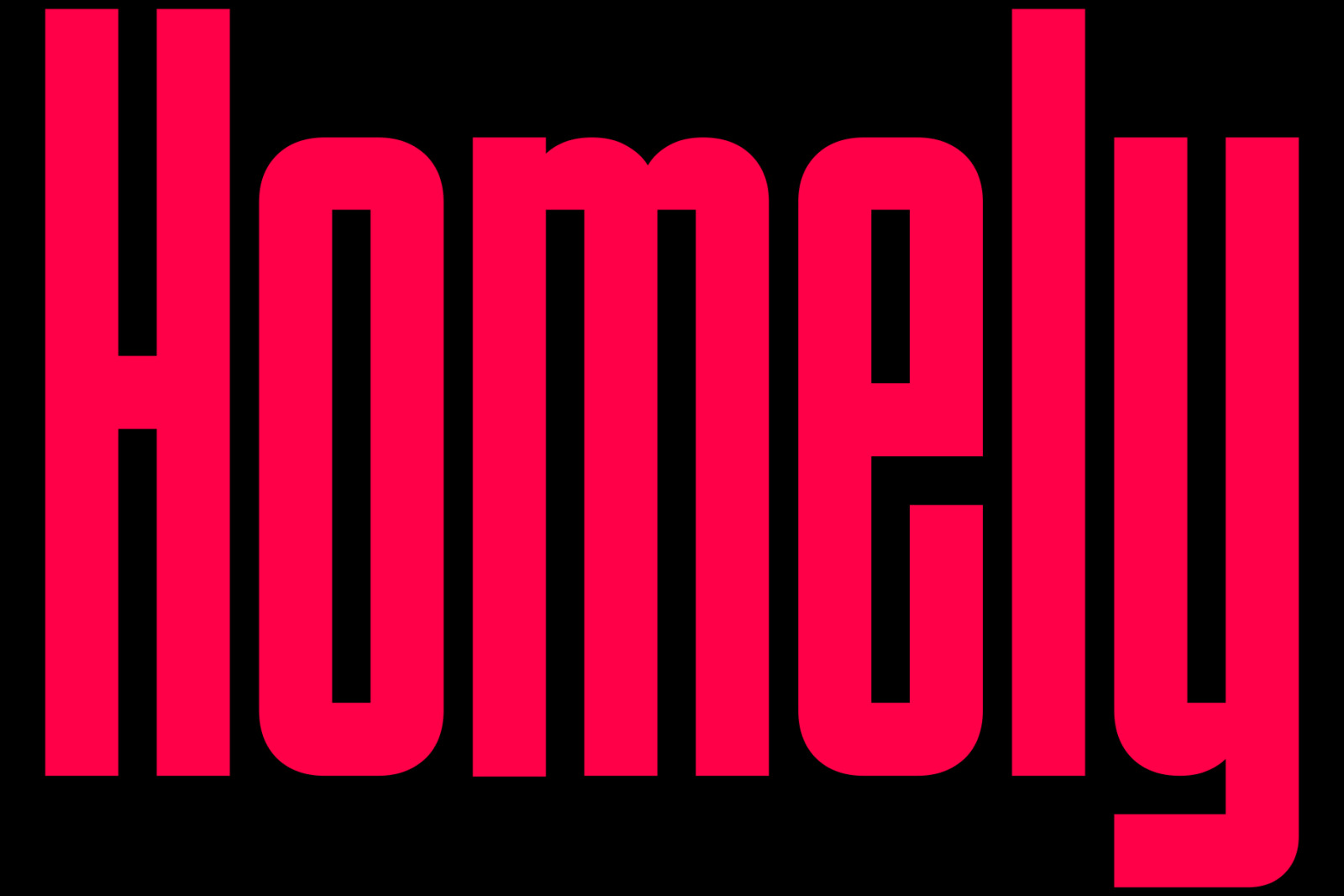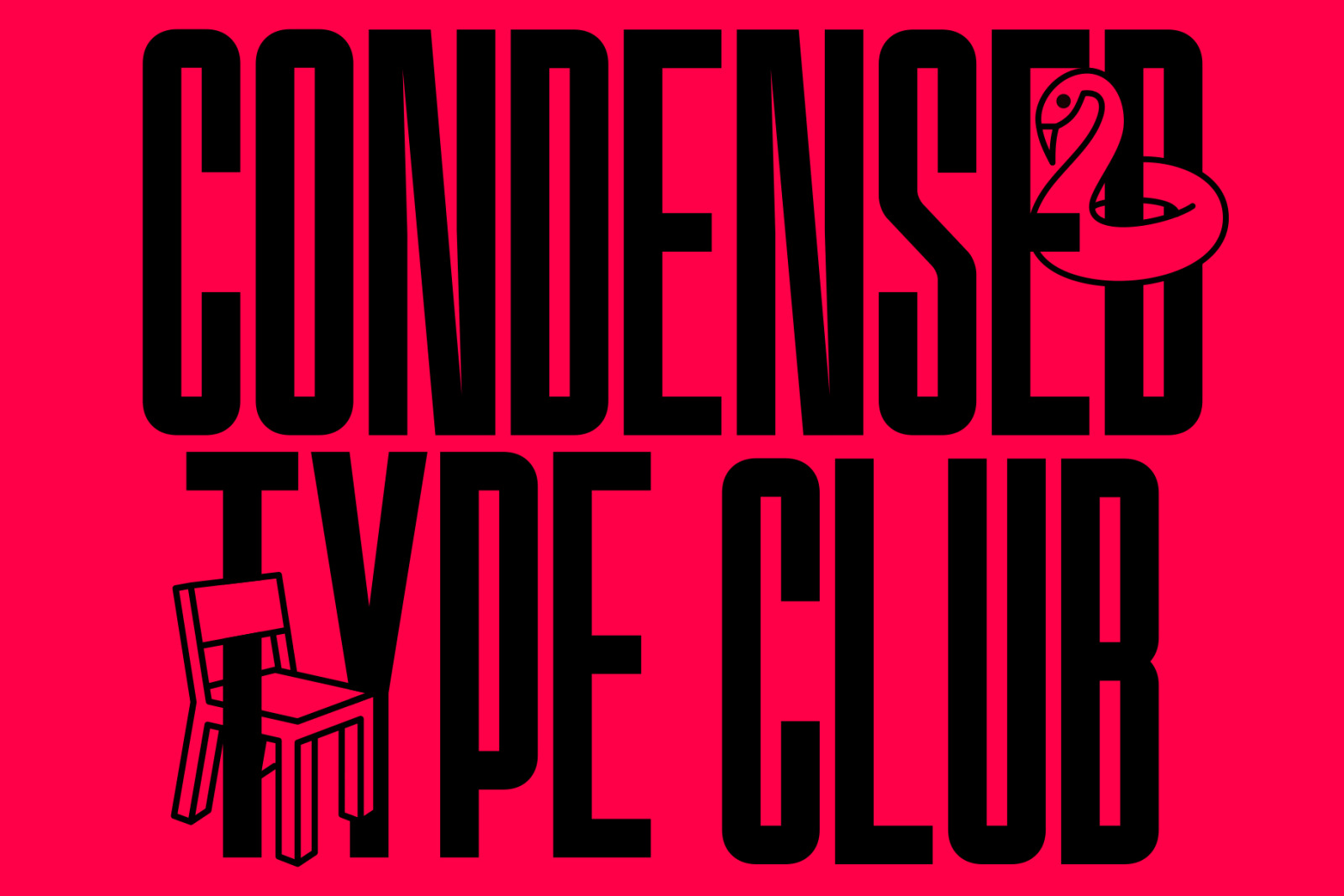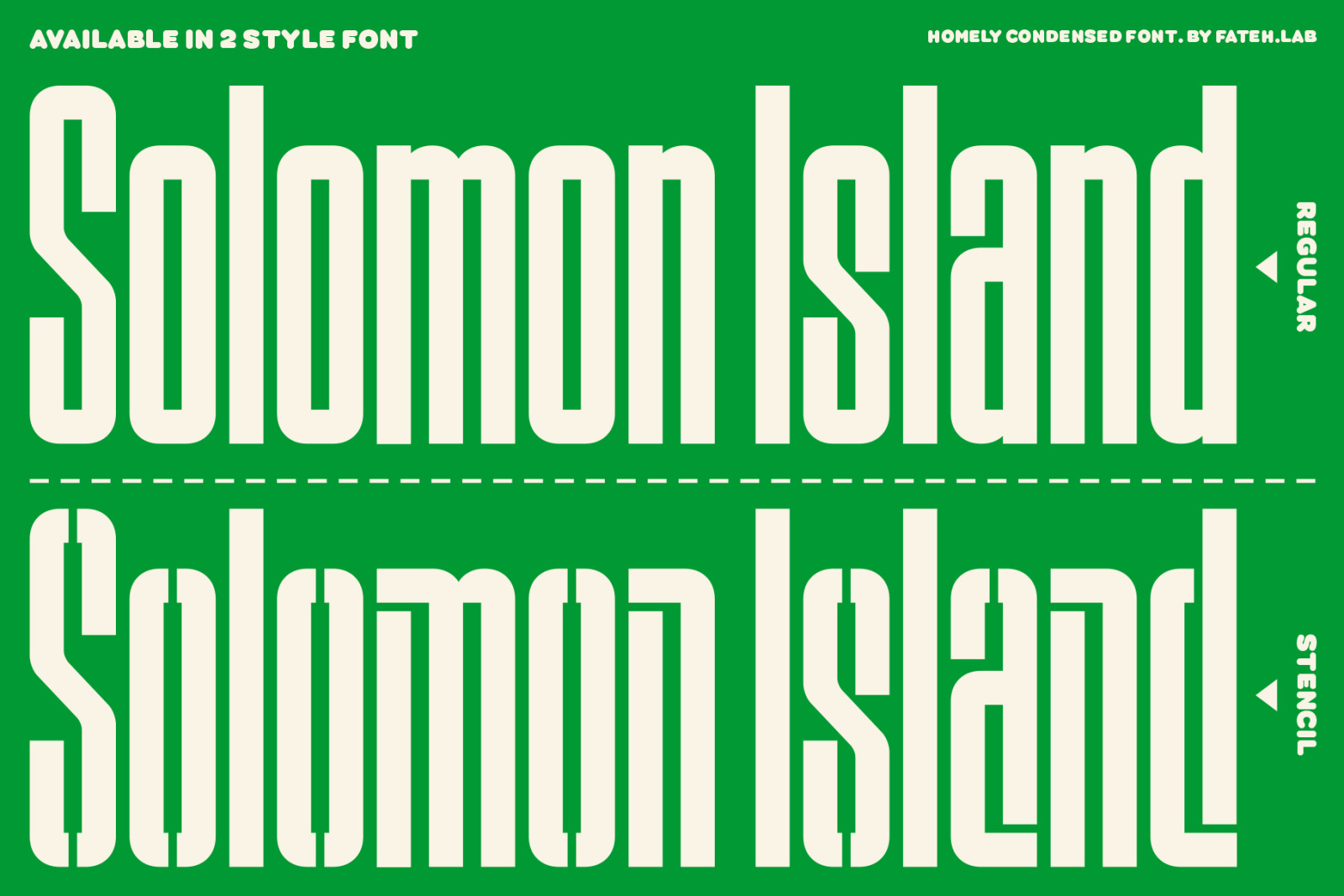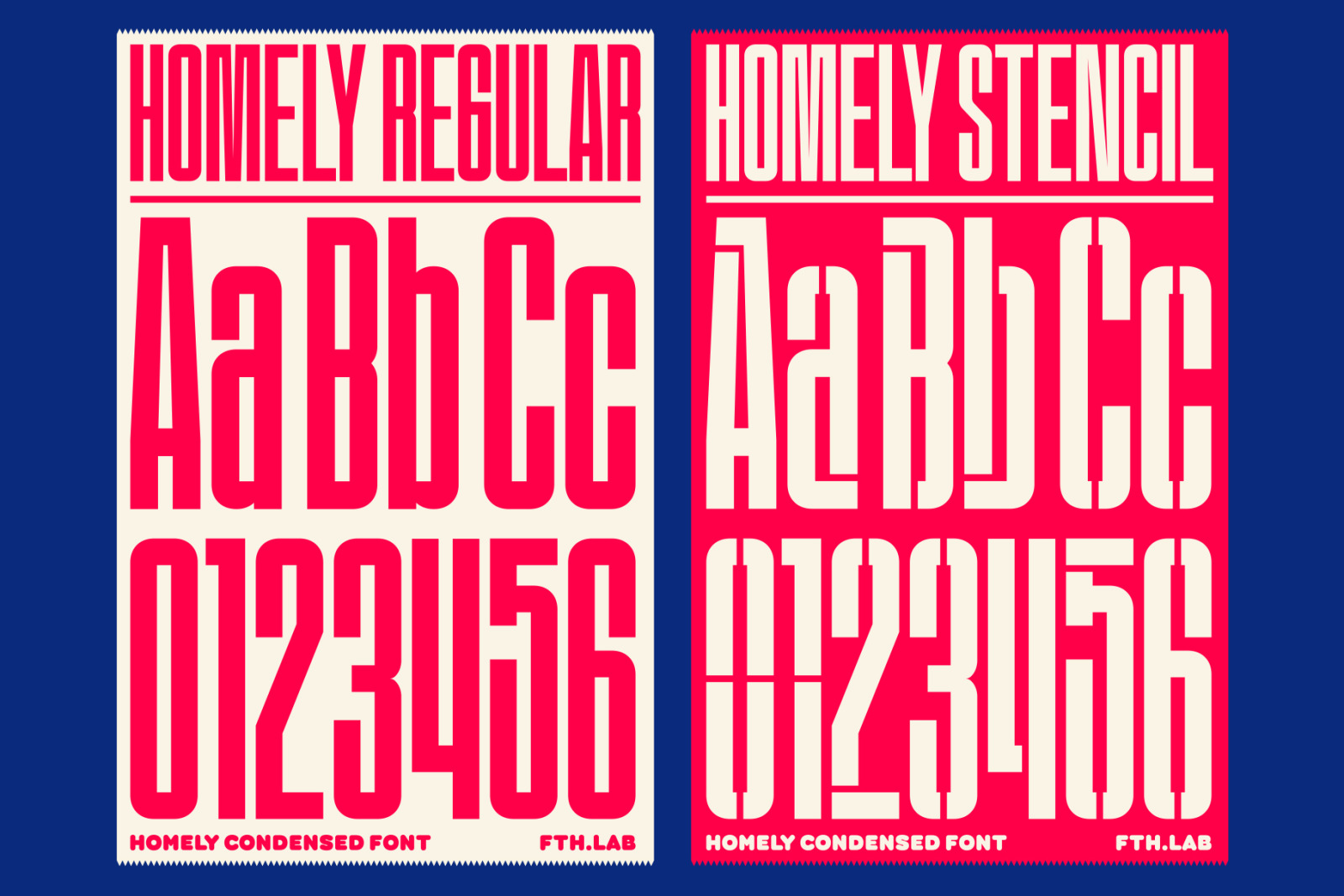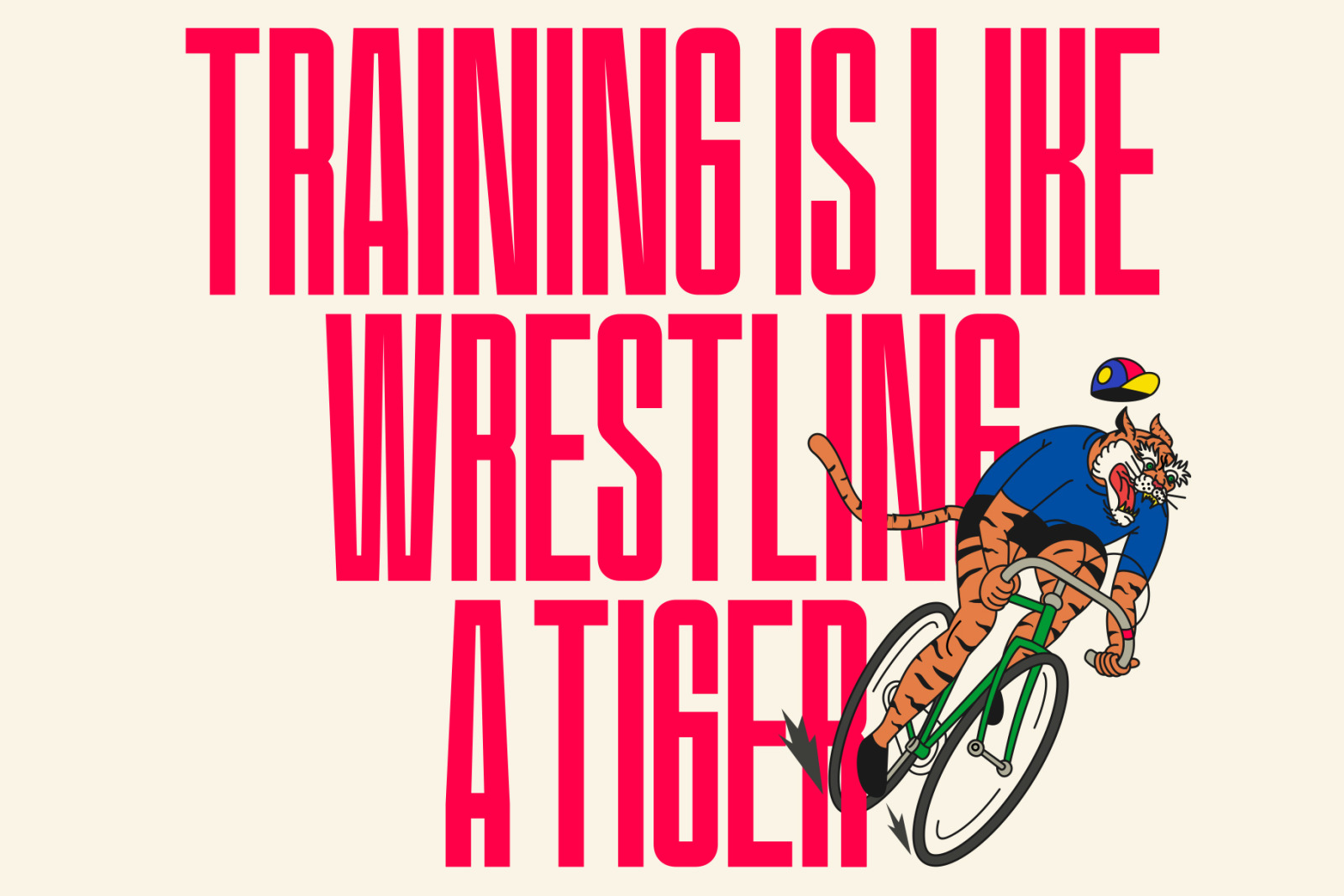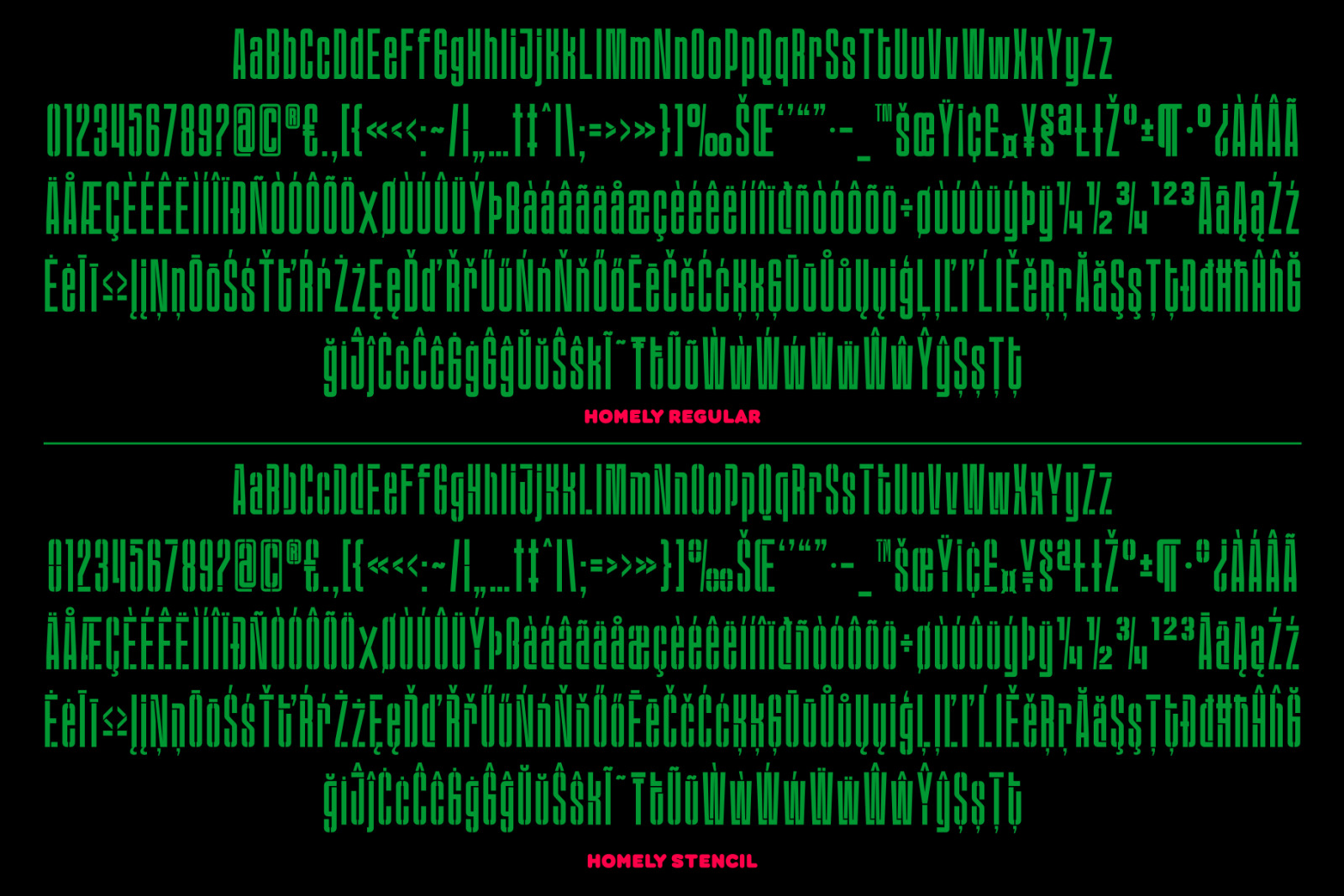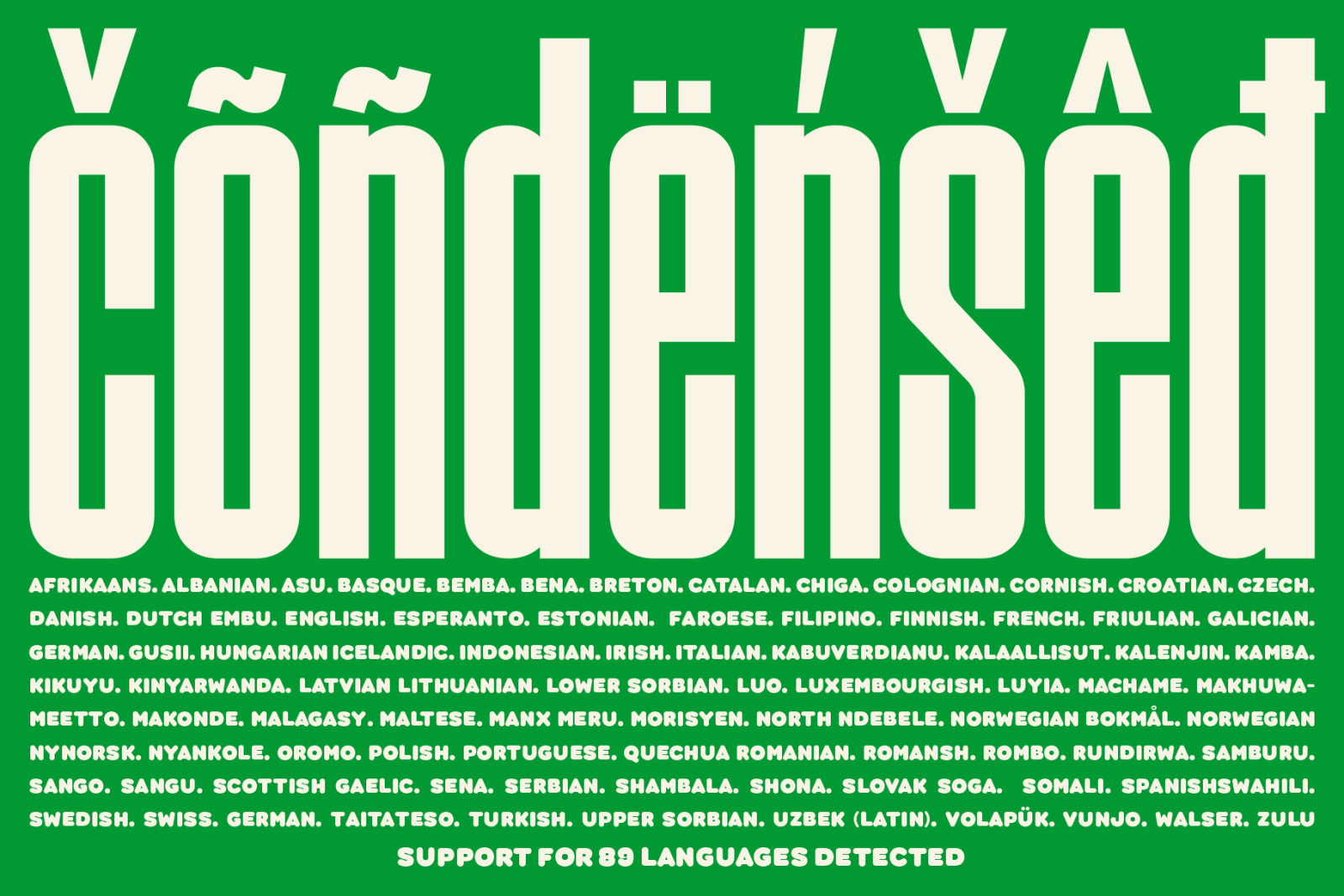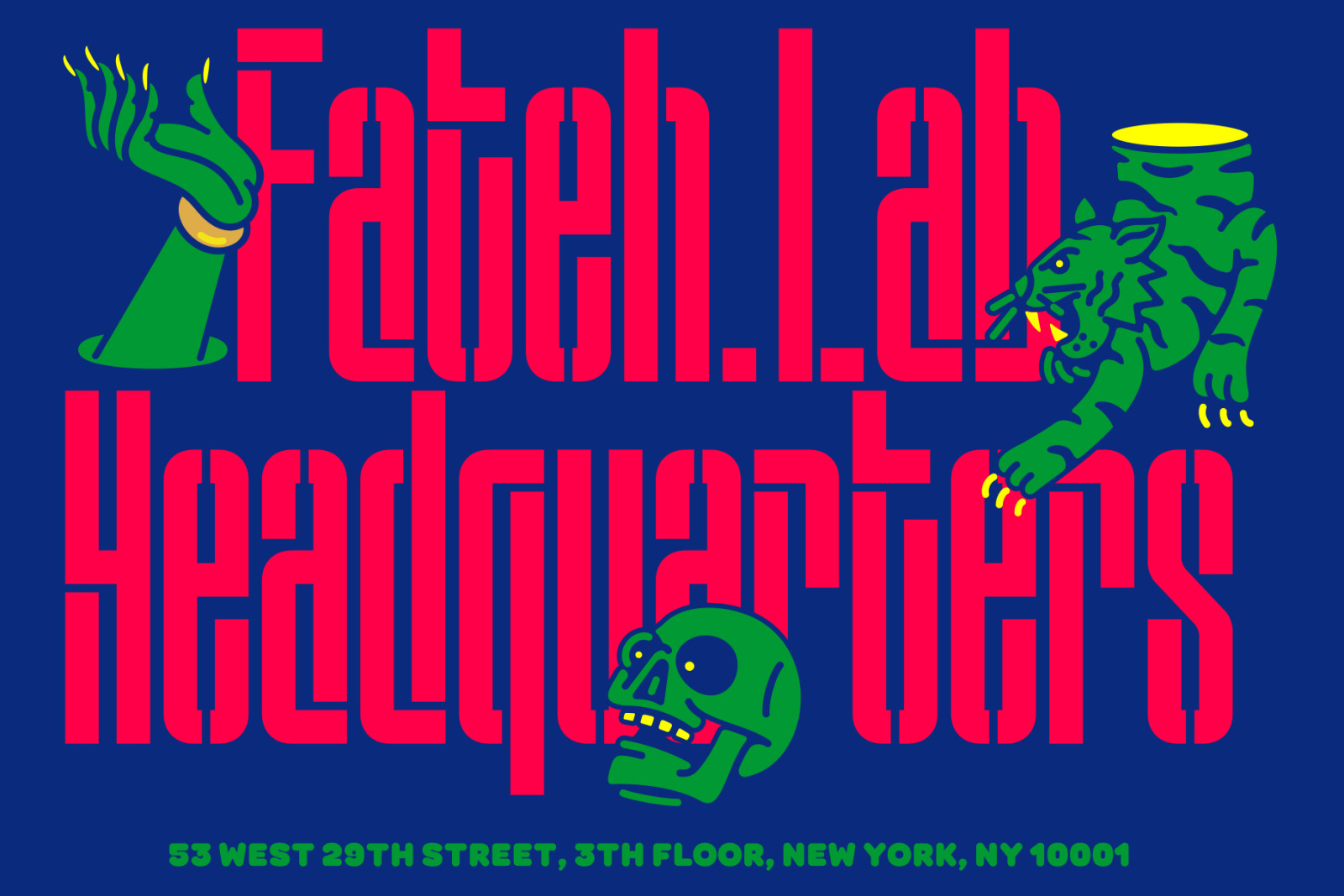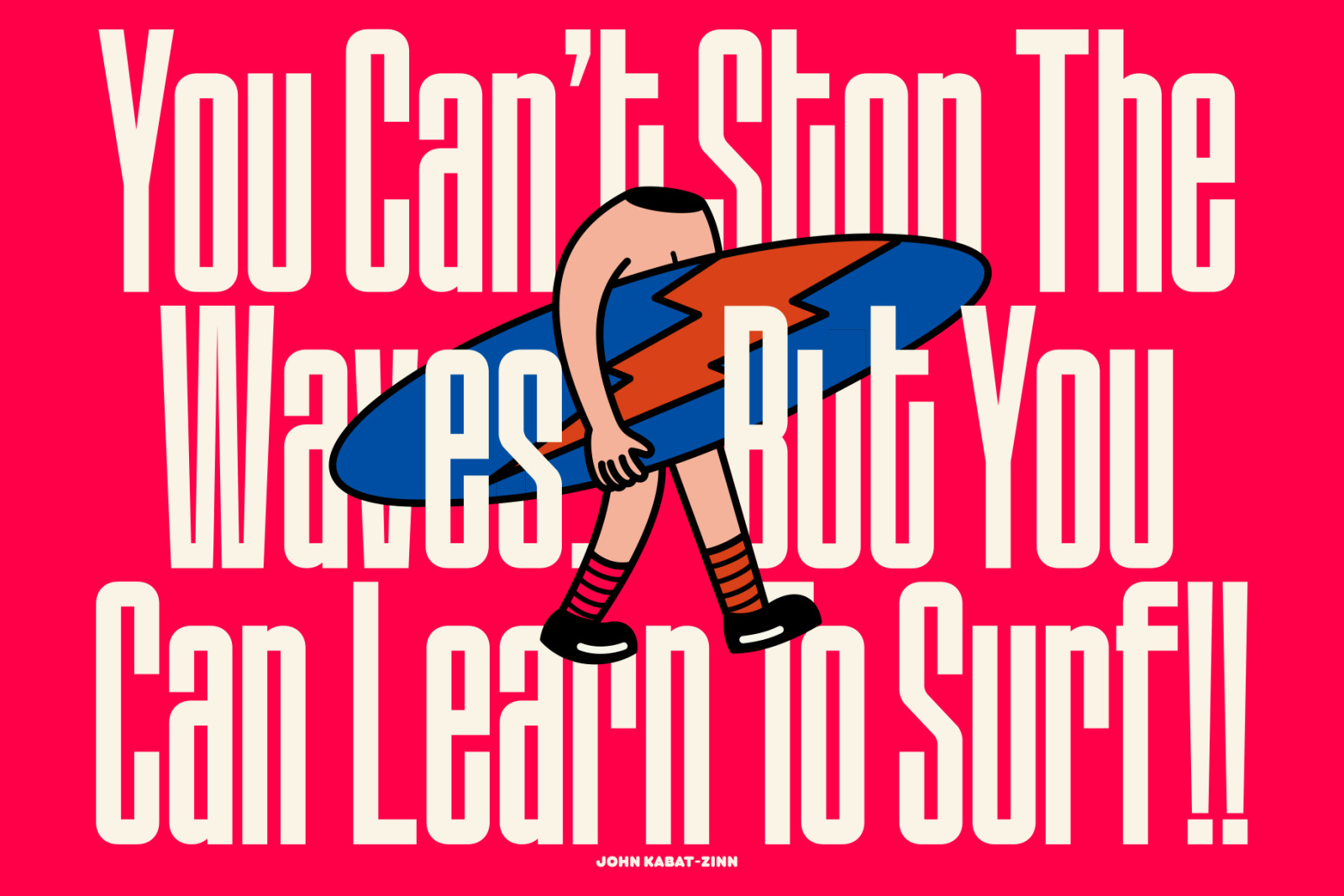
Homely Condensed Font
Homely, designed by Wisnu Cipto Wibowo, is a unique condensed typeface that combines strength with softness. It features a cheerful and fresh theme, available in two styles to suit various design needs. Its versatility makes it ideal for posters, social media, headlines, magazine titles, clothing, and large print formats. Inspired by contemporary design trends, Homely is perfect for bringing your creative visions to life.